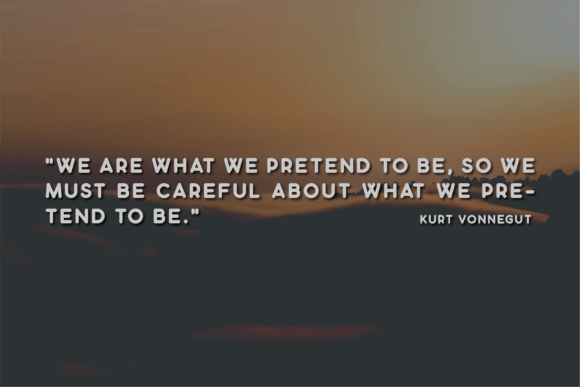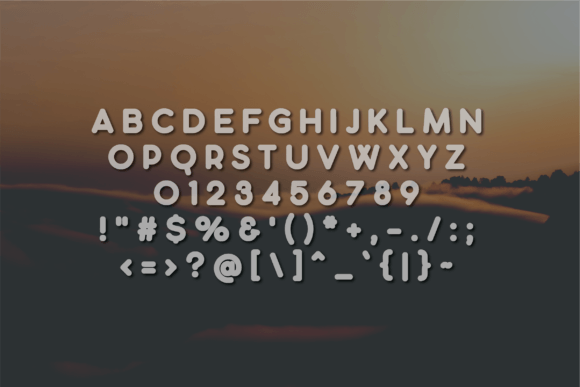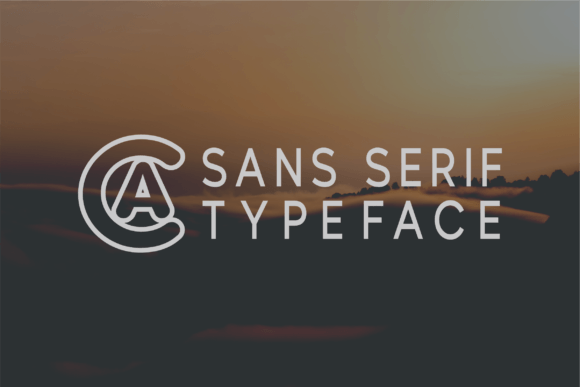
Introduction to Moredith Font
Have you ever found yourself staring at a blank canvas, searching for the perfect font to bring your creative project to life? The moment when the right typography clicks, and everything falls into place, is pure magic. That’s exactly what happens when you add the Moredith Font to your design.
As a valuable design resource, Moredith Font offers a unique blend of modernity and elegance, making it perfect for a wide range of applications, from logos and wedding invitations to advertisements and magazine layouts. With its transparent background and high-quality design, Moredith Font is a game-changer for designers looking to elevate their work.
Key Features of Moredith Font
- Unique characteristic: Moredith Font features a unique blend of modern and vintage elements, making it perfect for designers looking for a distinctive look
Honest Review: Moredith Font
As a designer, I’ve had the pleasure of working with numerous fonts, and I’m excited to share my thoughts on the Moredith Font. This font is a great addition to any designer’s toolkit, especially for creative projects that require a unique touch.
One of the standout features of the Moredith Font is its high quality design. The font is clean, modern, and incredibly versatile, making it perfect for a wide range of applications, from digital displays to print materials. The transparent background option is also a game-changer, allowing designers to easily customize the font to fit any design aesthetic.
Overall, the Moredith Font is a great addition to any designer’s toolkit. While it may have a few limitations, its high quality design and versatility make it a valuable resource for any creative project.
Tips for Getting the Most Out of Moredith Font
To get the most out of the Moredith Font, use it with a transparent background to create a clean and modern design. You can also experiment with different font sizes and styles to add visual interest to your project.
Common Use Cases for Moredith Font
The Moredith Font is a versatile design resource that can be used in a variety of creative projects, including logos, business cards, and social media graphics. It’s also a great choice for designers who want to create a professional-looking design with a high-quality font.